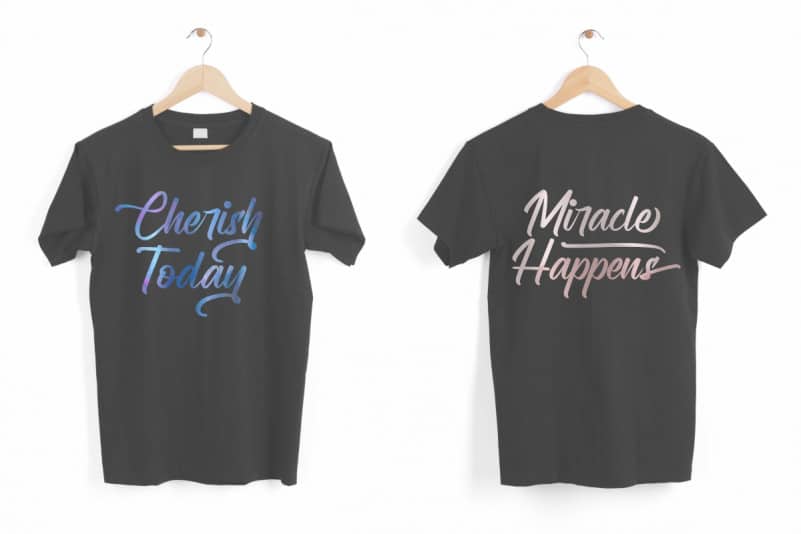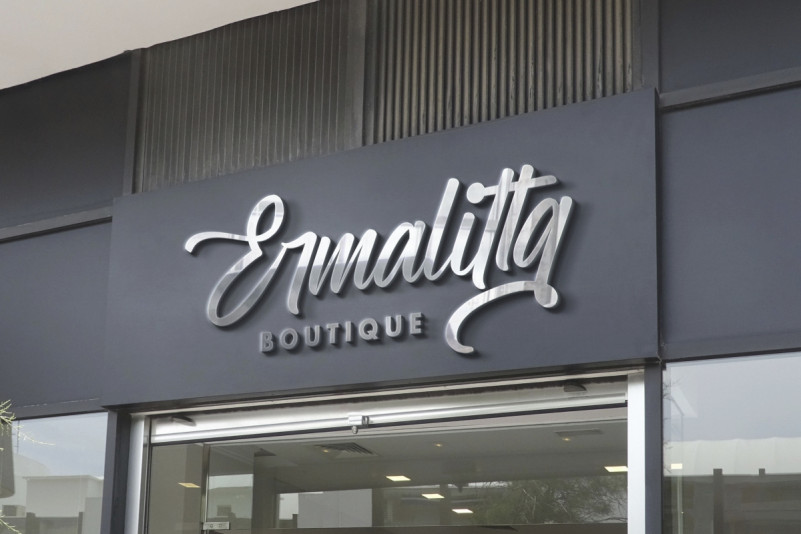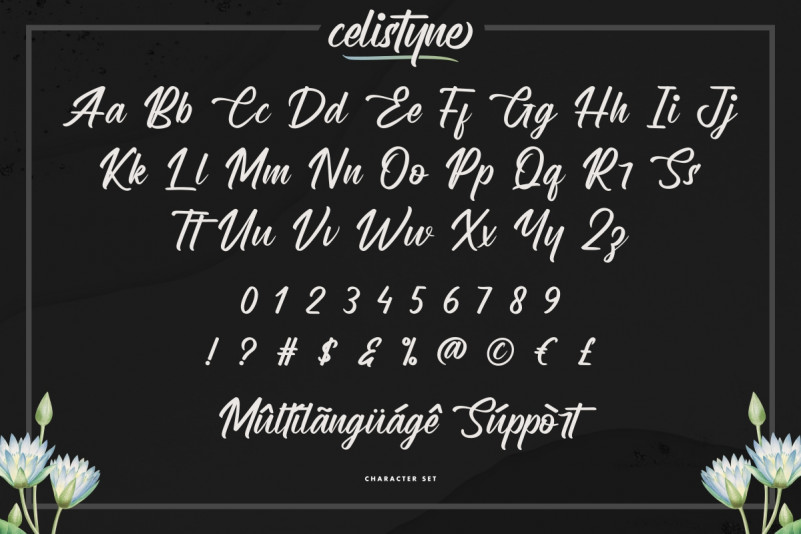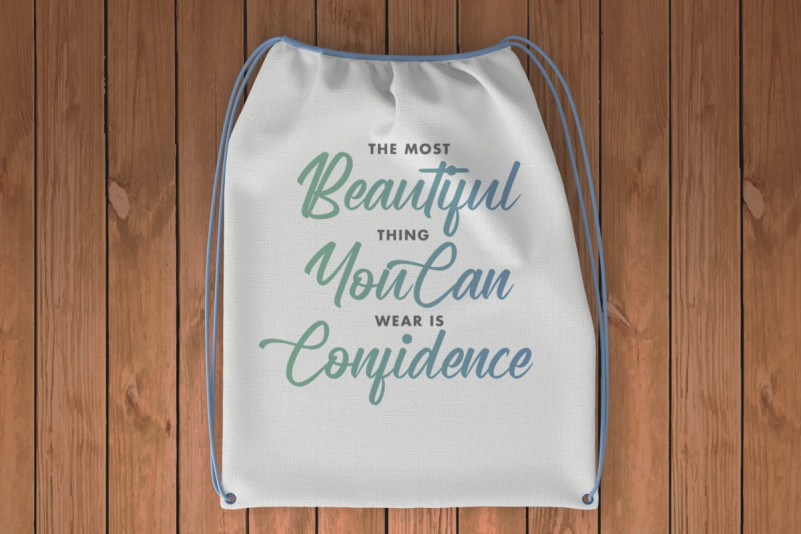
Celistyne Script Font
Celistyne Script Font is a modern calligraphic font. It has unique looks that are beautiful, modern, elegant, luxury, lettering and sophisticated brush font.